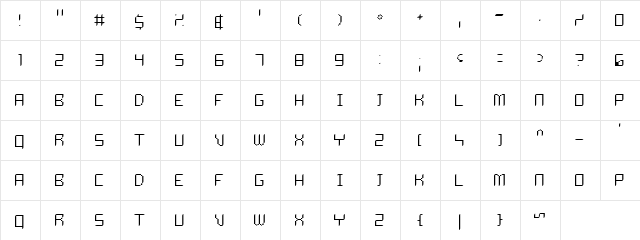
Dalila Light Regular
Dalila Light is a composed and adaptable typeface that performs quietly and consistently across a wide range of design contexts. The delicate stroke weight brings airiness and refinement to layouts.